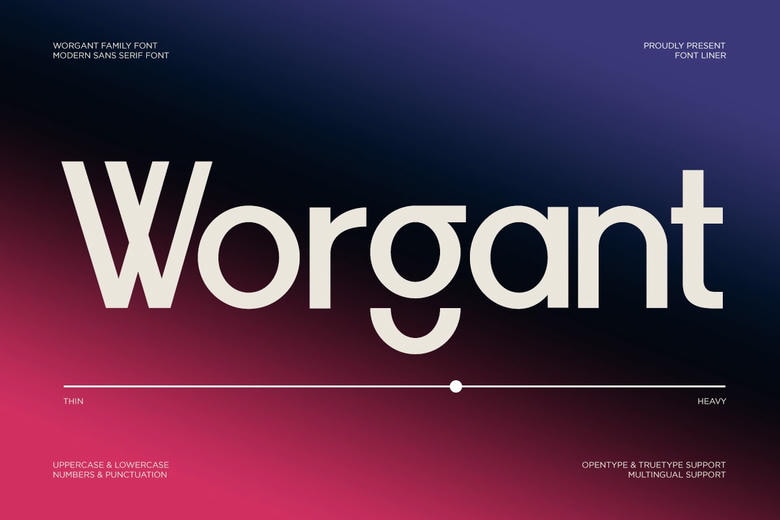
Worgant Font
Worgant is a sans-serif font family made for creators who value precision, flexibility, and a modern look that lasts. Its clean shapes, balanced design, and smooth curves make it easy to read and help it stand out in both digital and print work.
Worgant Sans Serif Font